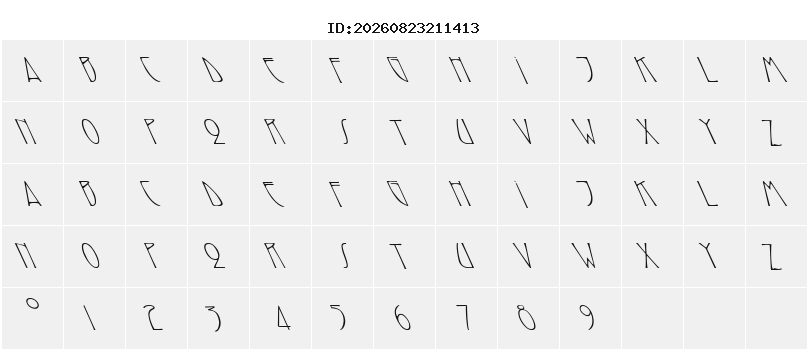
Sarah Caps Extreme Lefti Preview
About Sarah Caps Extreme Lefti.ttf
Sarah Caps Extreme Lefti.ttf is a modern, elegant sans-serif font designed for ultimate readability and visual harmony. Perfect for branding, headlines, web design, and print materials.